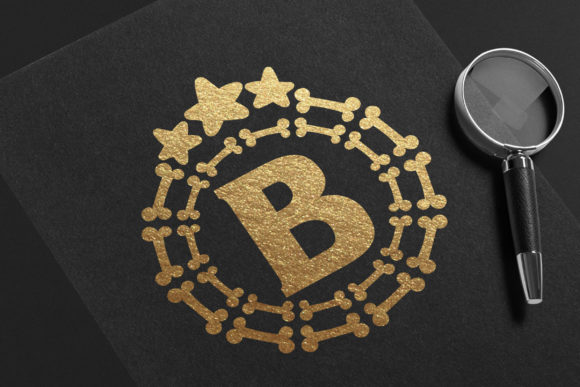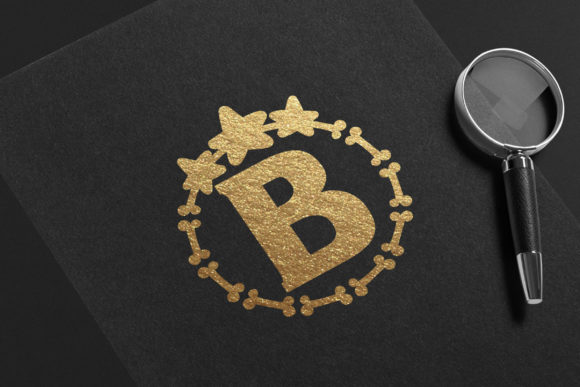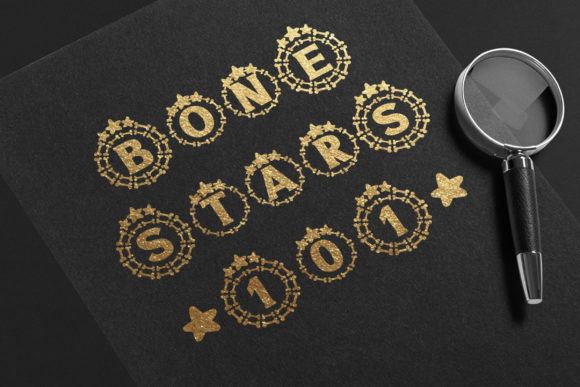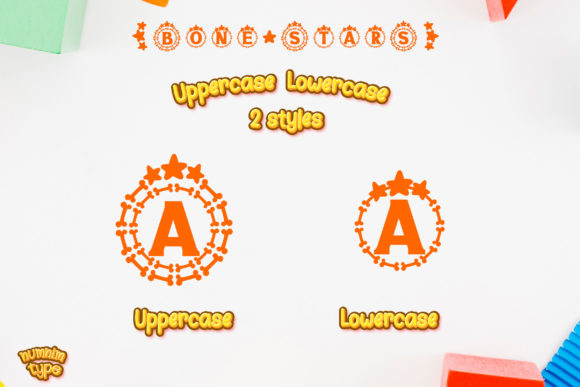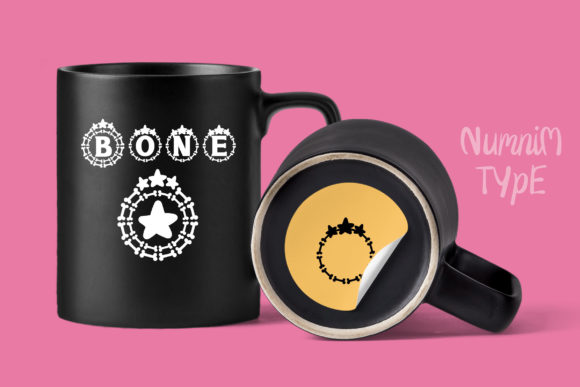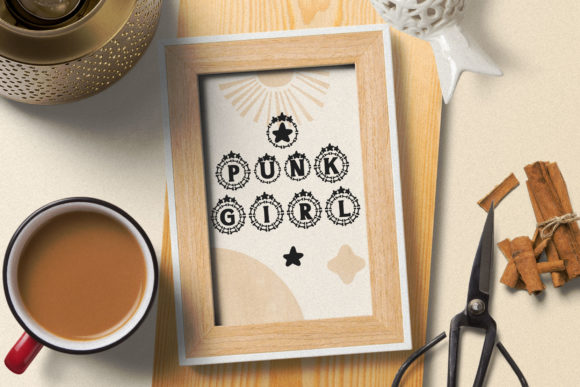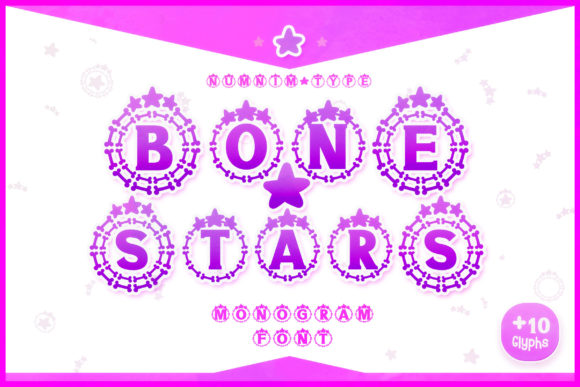
Bone Stars Font: A Festive and Fun Decorative Font for Designers and Crafters
Are you looking for a unique and playful font to add a touch of festivity to your designs? Look no further than Bone Stars Font! This decorative font is perfect for designers and crafters who want to create eye-catching and engaging projects. In this article, we’ll take a closer look at Bone Stars Font, its features, and how you can use it to elevate your designs.
What is Bone Stars Font?
Bone Stars Font is a festive and fun decorative font that’s perfect for a variety of design projects. This font is designed to add a touch of whimsy and playfulness to your designs, making it ideal for projects such as party invitations, holiday cards, and DIY crafts.
Features of Bone Stars Font
So, what makes Bone Stars Font so special? Here are just a few of its key features:
• PUA Encoded: Bone Stars Font is PUA (Private Use Area) encoded, which means that you can access all of the glyphs and swashes with ease. This makes it simple to use the font in your designs and ensures that you can get the most out of its features.
• Festive and Fun: This font is designed to be festive and fun, making it perfect for holiday-themed designs and projects.
• Decorative: Bone Stars Font is a decorative font that’s designed to add a touch of elegance and sophistication to your designs.
How to Use Bone Stars Font
• Pair it with Other Fonts: Bone Stars Font pairs well with other fonts, making it easy to create unique and engaging designs. Try pairing it with a bold font for a striking contrast.
• Use it for Headings: This font is perfect for headings and titles, making it ideal for projects such as posters, flyers, and brochures.
• Add Swashes and Glyphs: With Bone Stars Font, you can easily add swashes and glyphs to your designs. This makes it simple to add a touch of elegance and sophistication to your projects.
Design Ideas Using Bone Stars Font
So, what can you create with Bone Stars Font? Here are a few design ideas to get you started:
• Holiday Cards: Use Bone Stars Font to create festive holiday cards for friends and family.
• Party Invitations: This font is perfect for party invitations, adding a touch of whimsy and playfulness to your designs.
• DIY Crafts: Bone Stars Font is ideal for DIY crafts, such as scrapbooking and paper crafting.
• Social Media Graphics: Use this font to create eye-catching social media graphics that are sure to grab attention.
Bone Stars Font is a festive and fun decorative font that’s perfect for designers and crafters. With its PUA encoding and festive design, this font is sure to add a touch of whimsy and playfulness to your designs. Whether you’re creating holiday cards, party invitations, or DIY crafts, Bone Stars Font is a great choice. So why not give it a try and see what amazing designs you can create?
• Experiment with Different Sizes: Try using Bone Stars Font in different sizes to see how it looks in various contexts.
• Use it for Titles and Headings: This font is perfect for titles and headings, making it ideal for projects such as posters, flyers, and brochures.
• Add Texture and Patterns: Consider adding texture and patterns to your designs to give them an extra boost of visual interest.